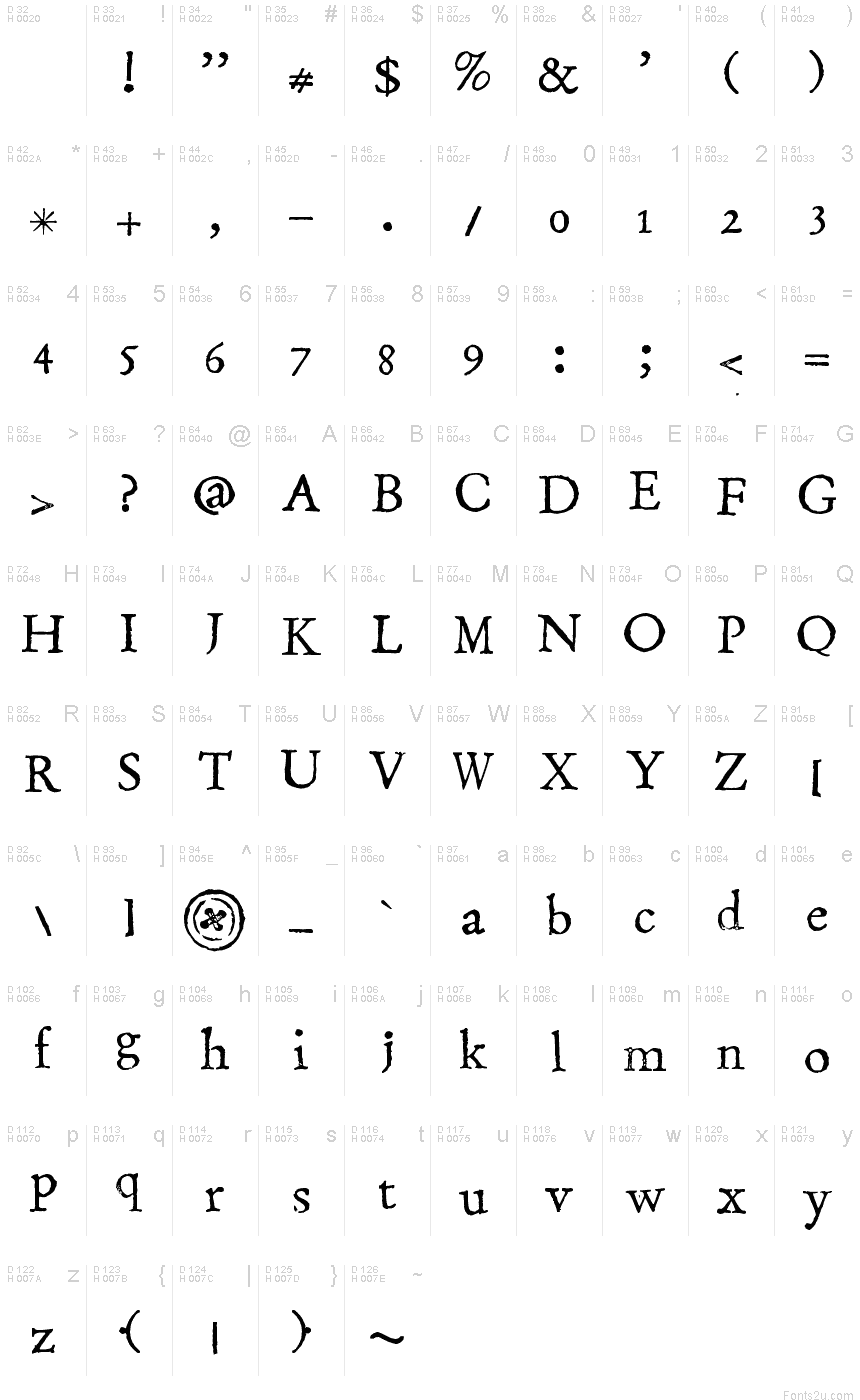
Stamping Nico from FontPanda is a free eroded display font with the uneven bite of worn letterpress type. Its broad serif forms shift between thick blunt strokes and thinner cuts, with rough edges that make each letter seem physically stamped. The irregular contours keep the line lively rather than mechanically distressed.
That battered print-shop character makes a convincing basis for gig posters and independent record packaging. Craft-beer labels and editorial covers also suit its handmade texture. The audience is music, food, and culture designers who want type that resembles ink pressed onto an imperfect surface.
Stamping Nico